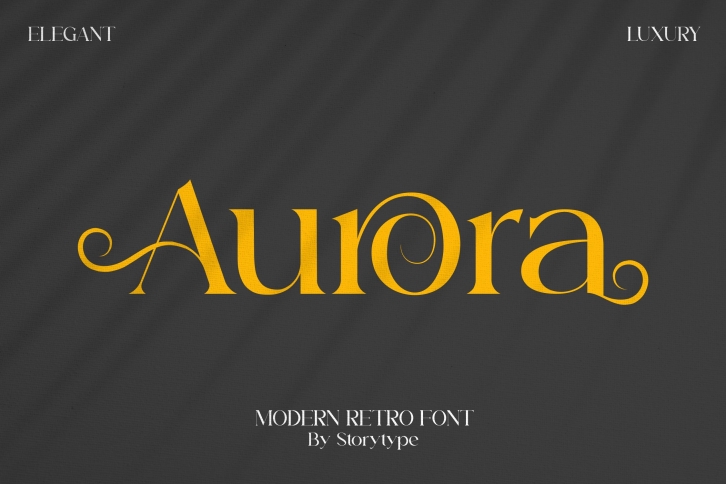
Aurora is a trendy and unique font with an authentic style. It was designed by Pricilia Design and it's a great choice for creative people who need such a font. It was released on September 30, 2022 and the file size is 14.15 MB. Aurora will add an organic vibe to any design idea!